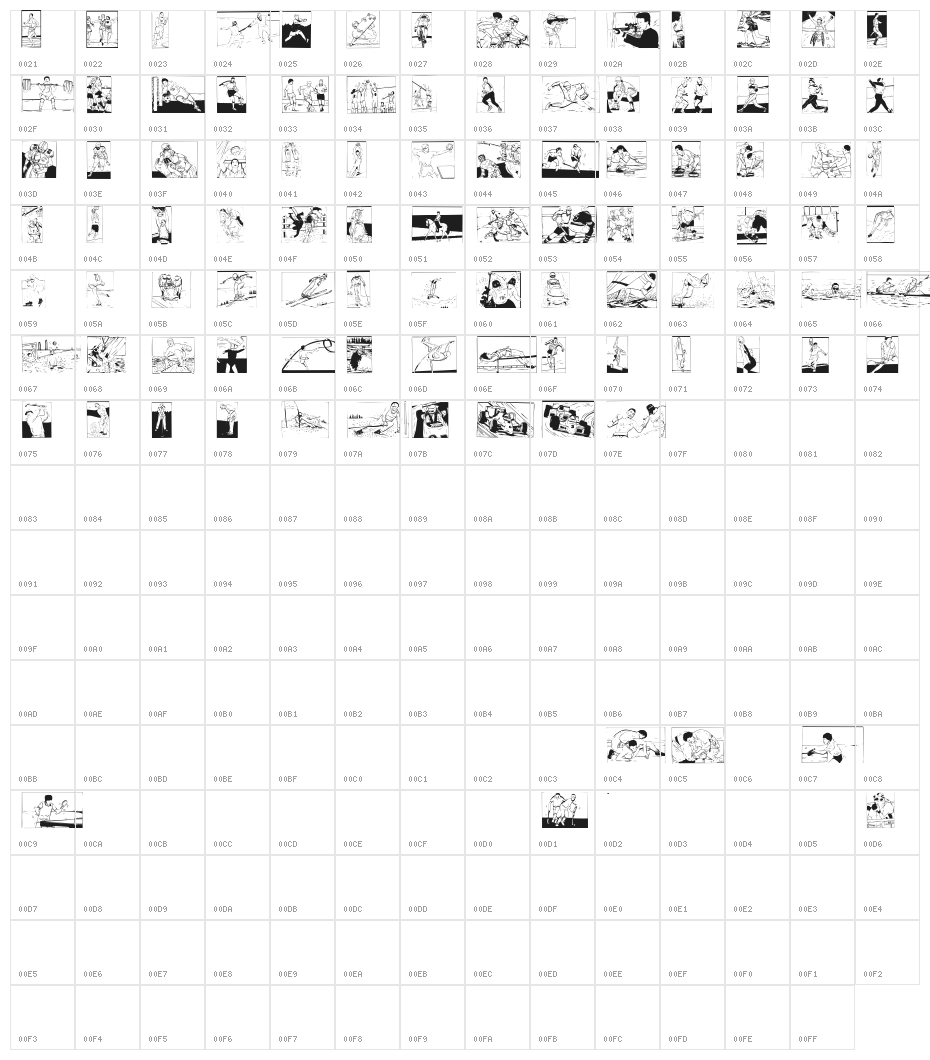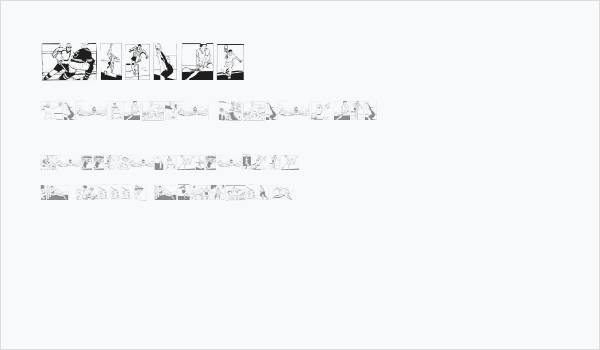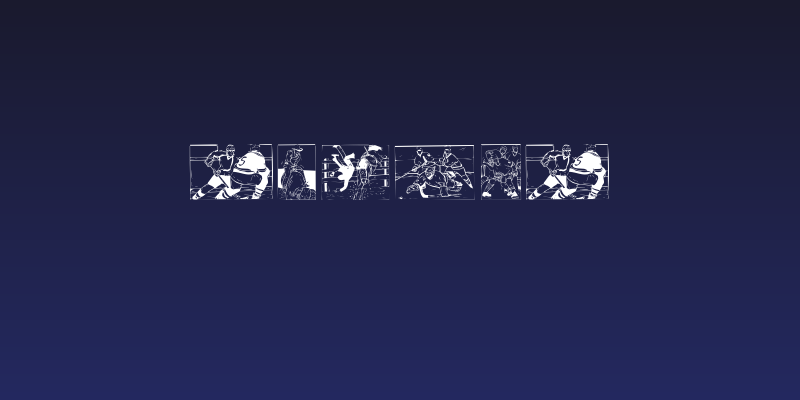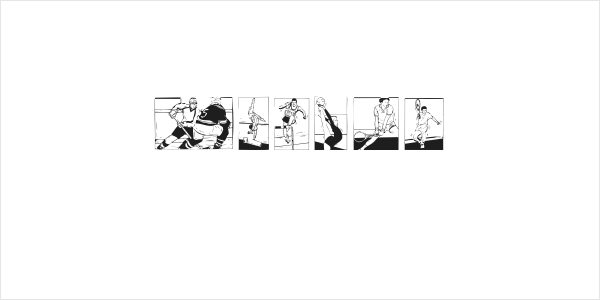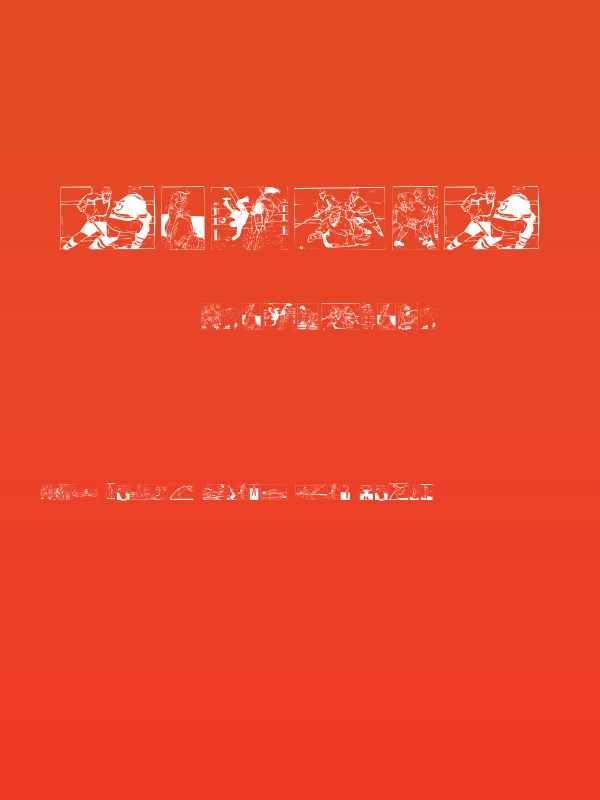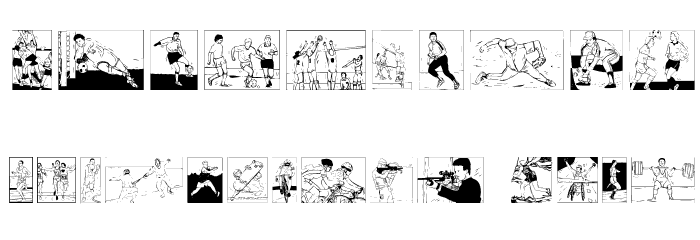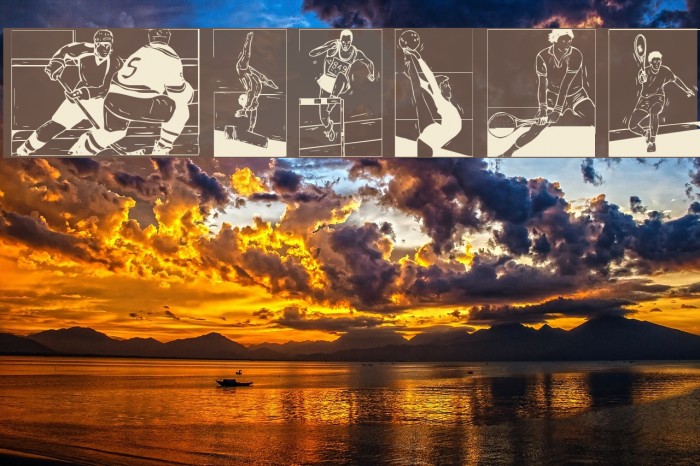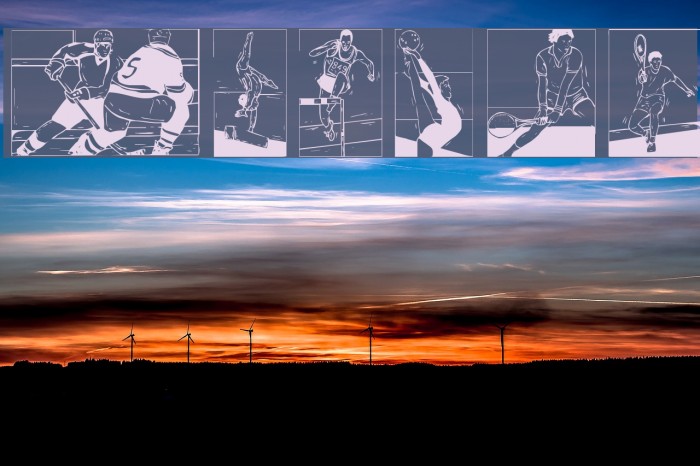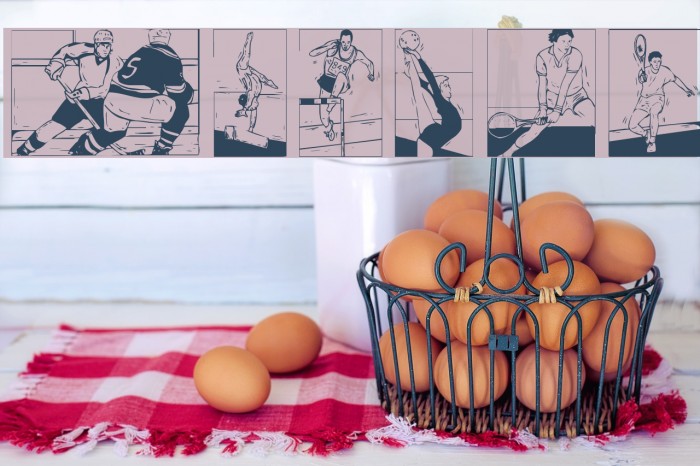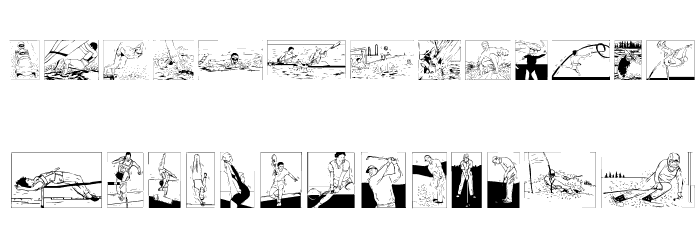
Sports Font
Sports Description
A decorative display font composed of illustrated sports scenes within each character, featuring black and white line art depictions of various athletic activities. Each letter and number is filled with detailed drawings, making the font highly illustrative and thematic.
| Overall Style | Decorative, Thematic, Playful |
| Use Case | Headlines, Posters, Themed graphics, Logos |
| Proposed Projects | Sports event posters, athletic branding, children's educational materials, themed invitations, magazine covers. |